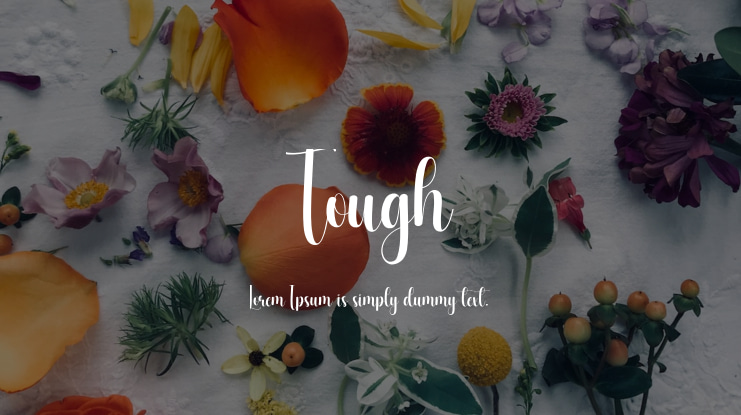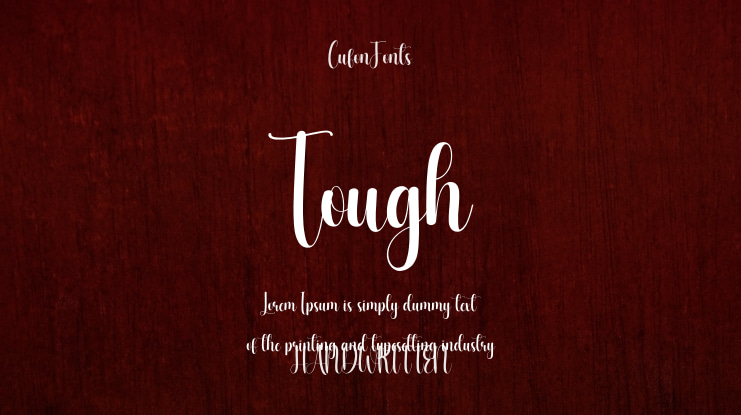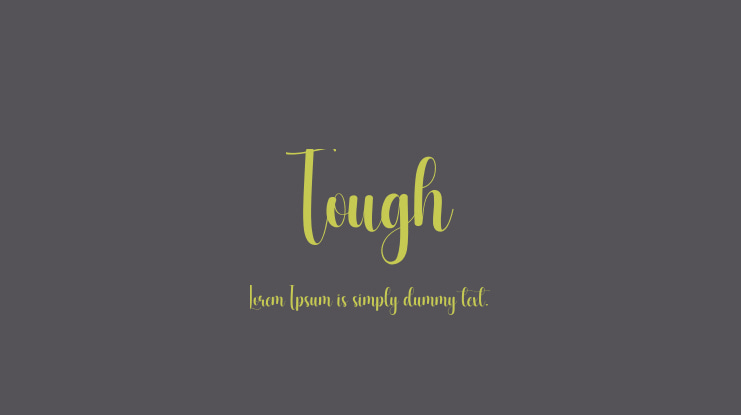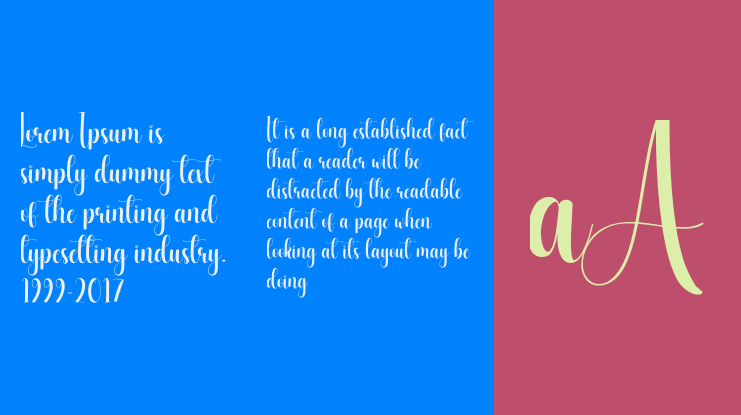
Tough Font
Discover our special creative products designed just for you! Our offerings promise an extraordinary experience, perfect for various applications including wall displays, wedding invitations, social media posts, logos, advertisements, product packaging, product designs, labels, photography, watermarks, stationery, and any project requiring elegant handwriting.